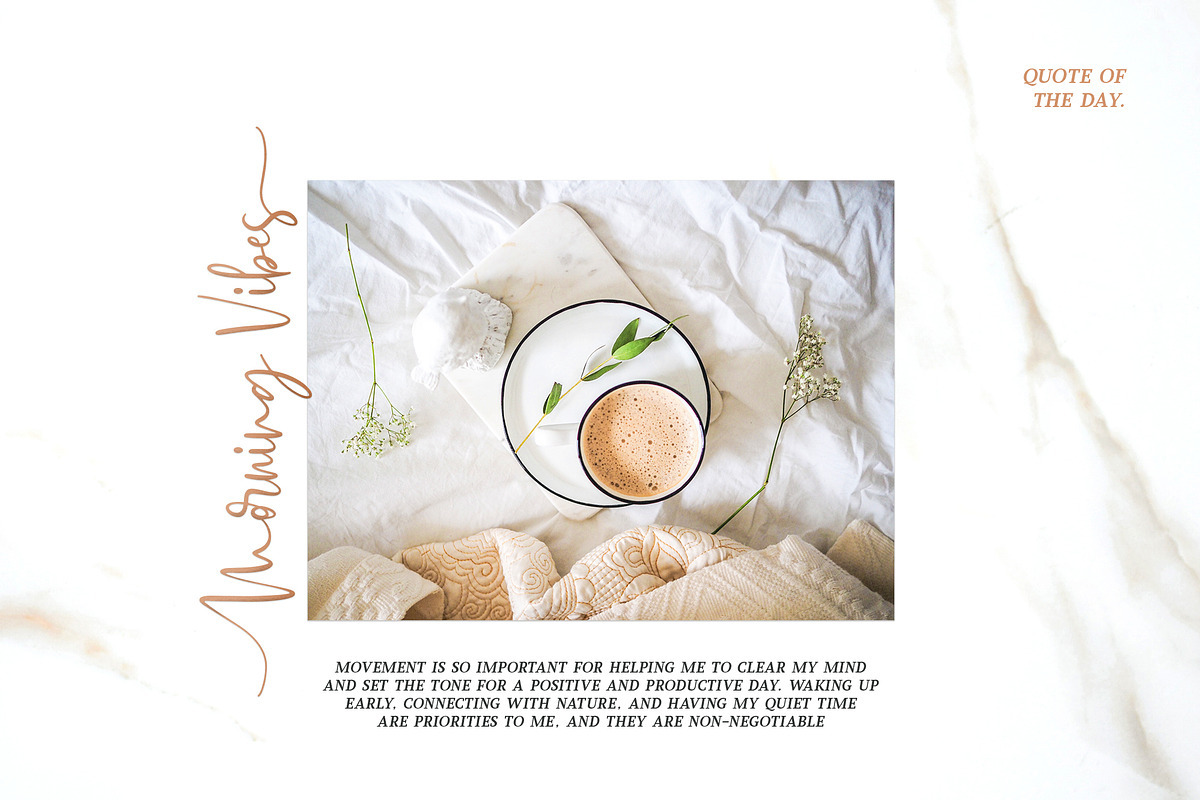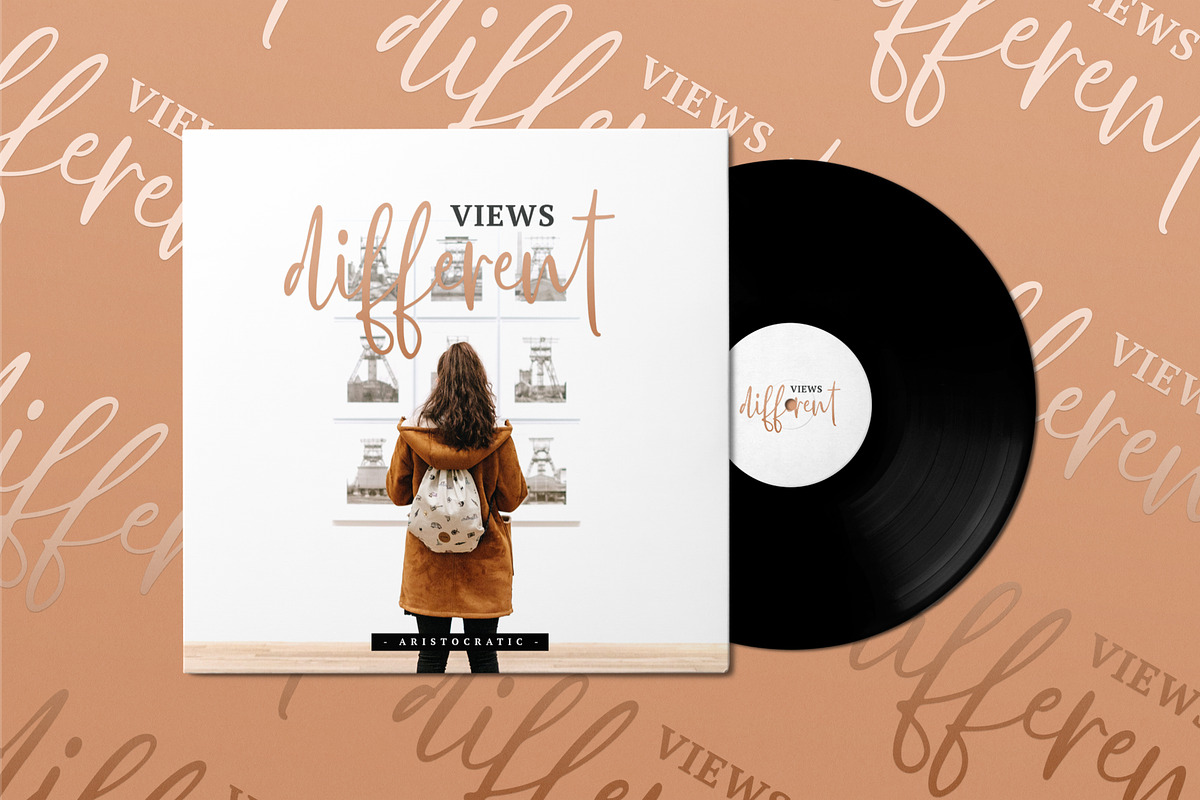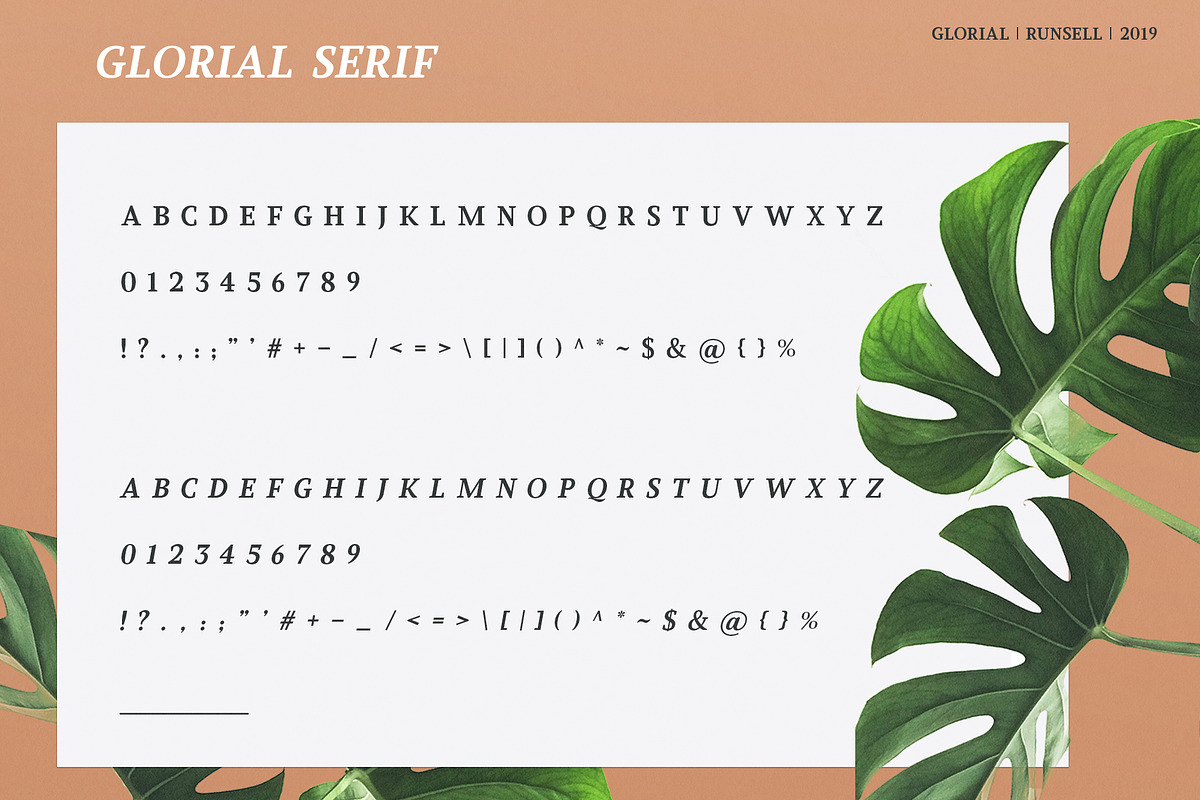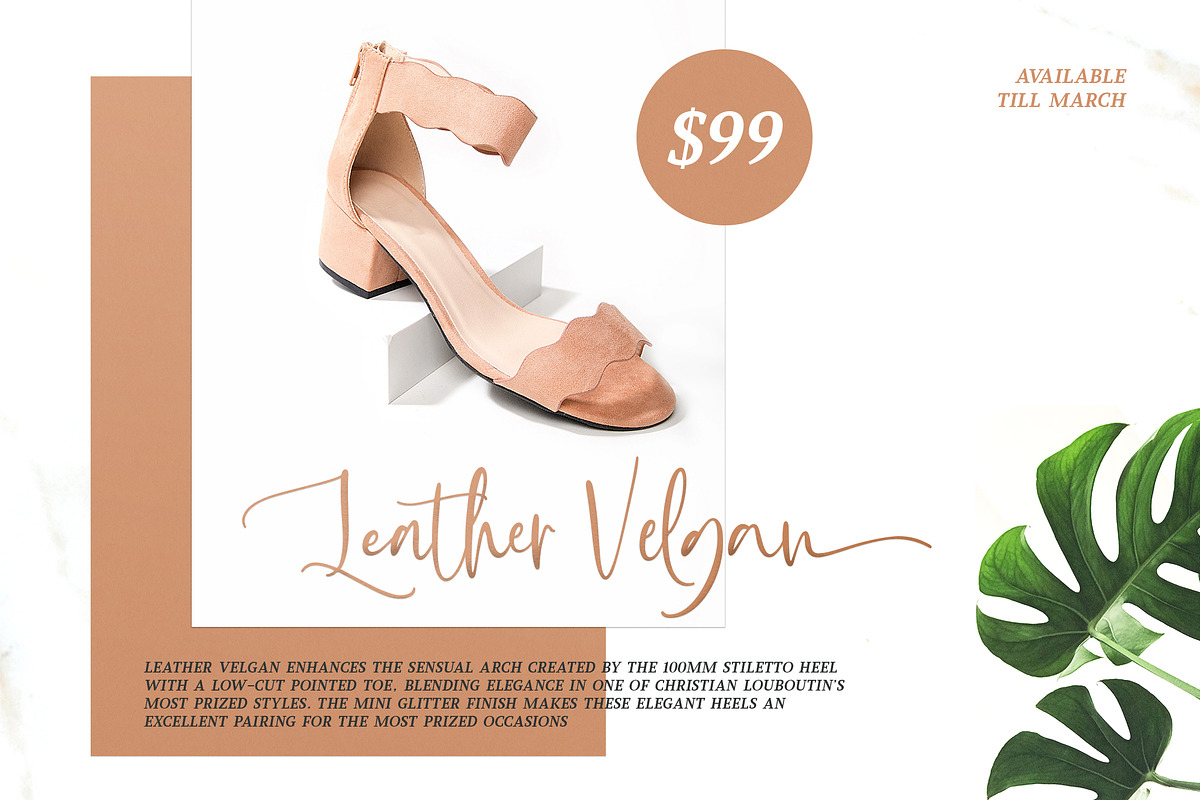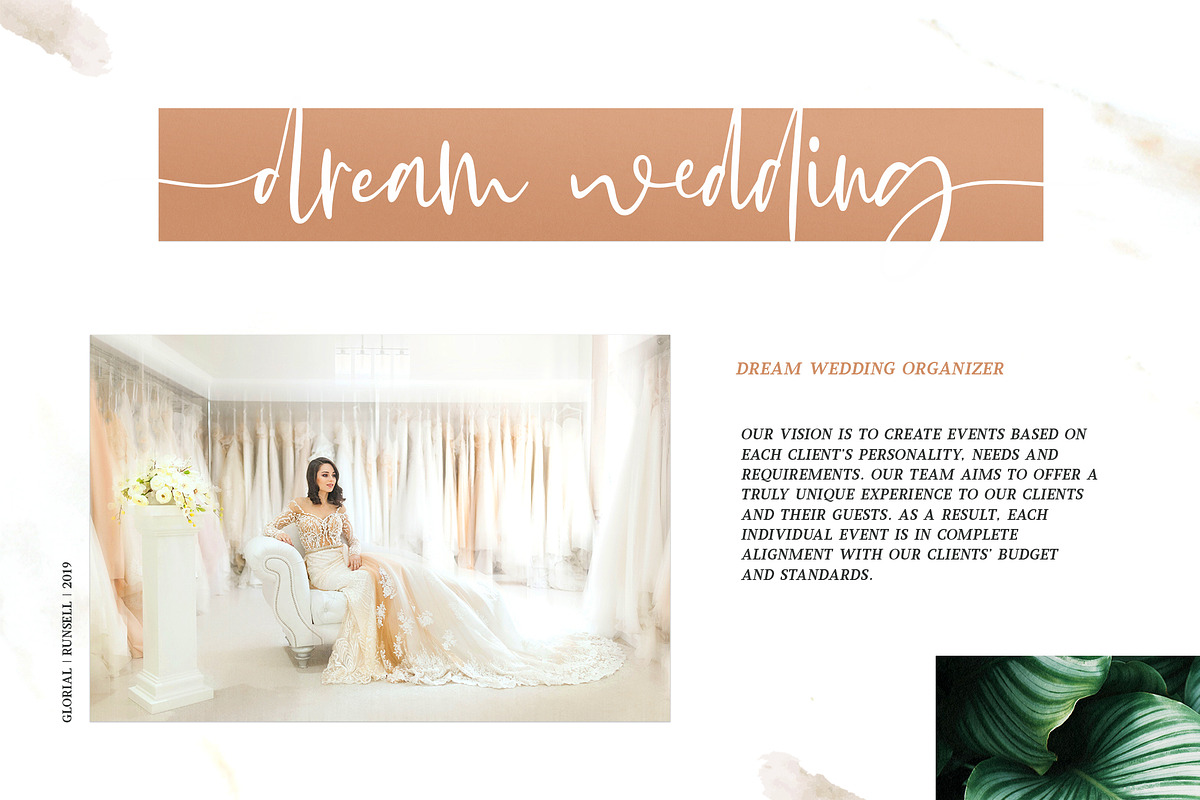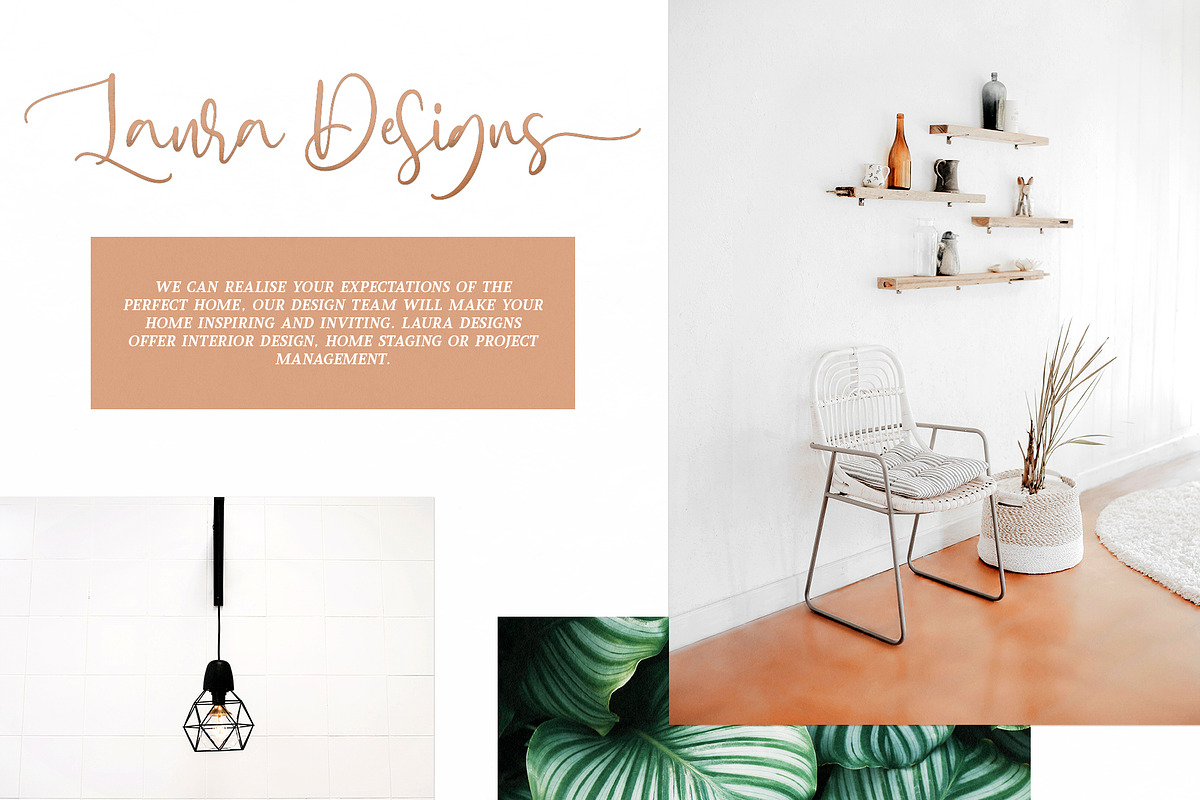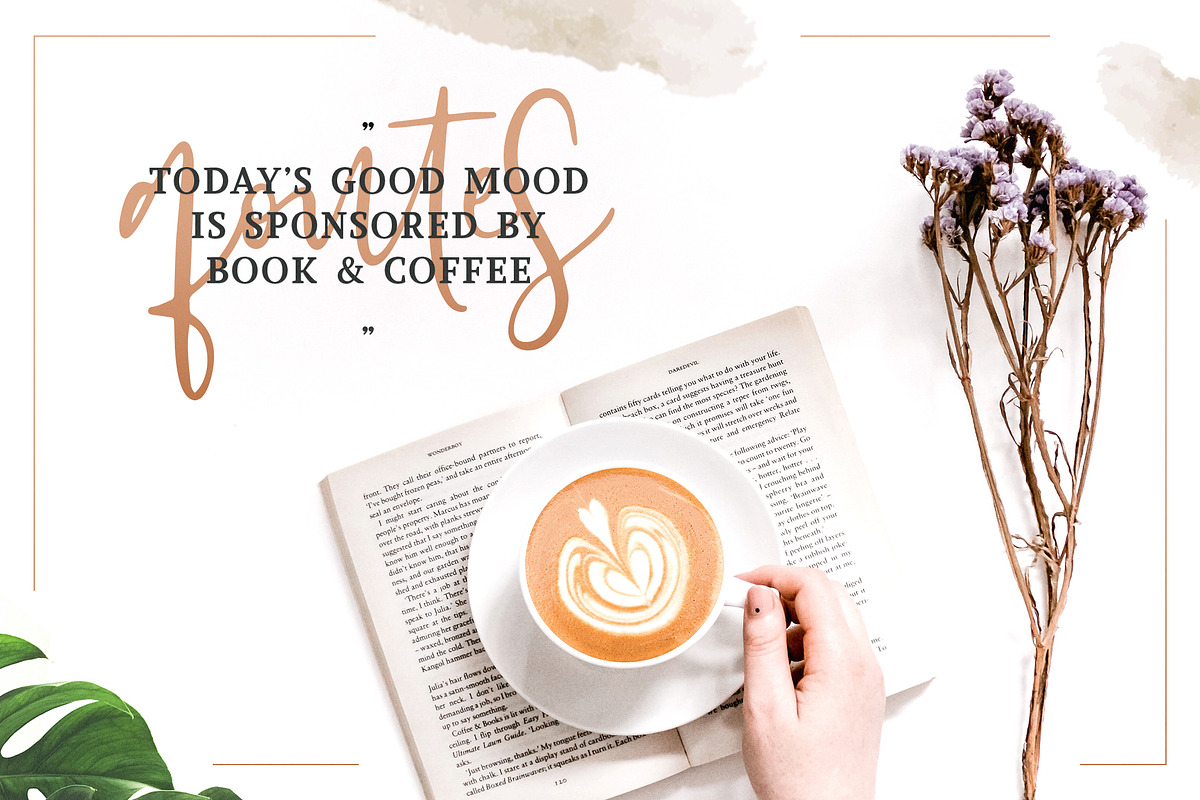
Glorial Font Duo | Script & Serif
Introducing Glorial - An Elegant Font Duo Collections
The handwritten calligraphy script works perfectly together with contemporary serif (regular and slant). Glorial Script includes a full set of uppercase & lowercase letters with beginning swashes , a full set of lowercase letters with ending swashes, a full set of contextual alternates lowercase letters , 50+ ligatures features that makes the font look more natural.
Glorial fonts that special for fashion and matches applies in some designs such as the logotype, brand, magazine, website or blog headlines, packaging, branding, quotes, invitation cards, greeting cards, business cards, and wedding more.
50+ Ligatures, Contextual alternates, Stylistic alternates, and Swash
Uppercase, lowercase, numeral, punctuation and symbol Script and Serif font (regular & slant)